In their own write: Fonts made from the handwriting of David Bowie, Kurt Cobain, John Lennon & more
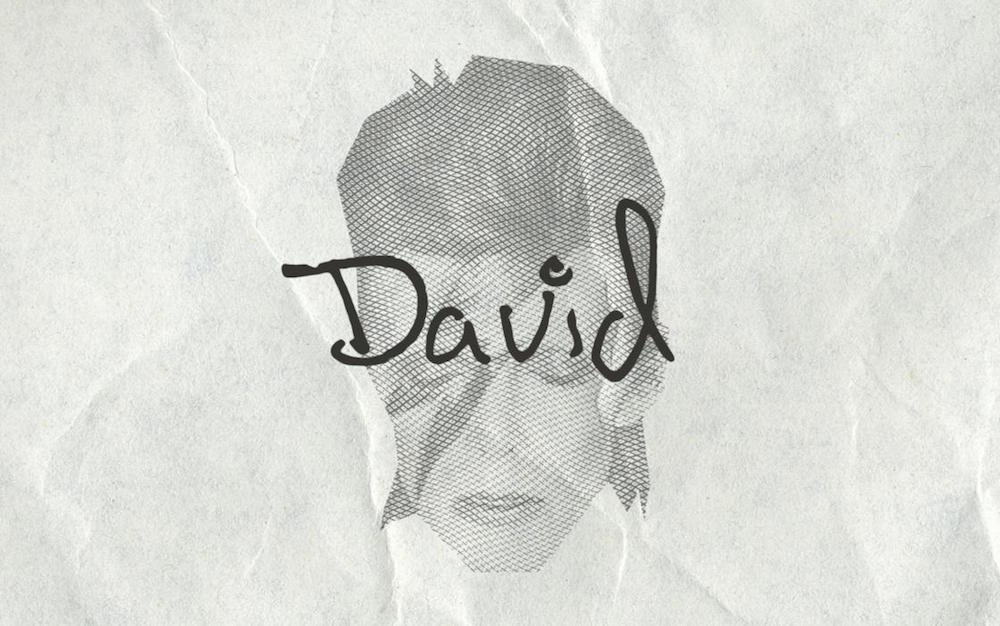
Nicolas Damiens is a French graphic designer with an impressive back catalog of award-winning work for a range of companies. He has won a trophy cabinet full of awards including a gold medal for his project Tokyo No Ads. Most recently, Damiens designed a series of Songwriters Fonts based on original handwritten letters and notes from the likes of Serge Gainsbourg, John Lennon, David Bowie, Kurt Cobain and Leonard Cohen. These fonts are available to download for free for personal use so you won’t have to practice your cursive writing skills for penmanship like one of your favorite pop stars.